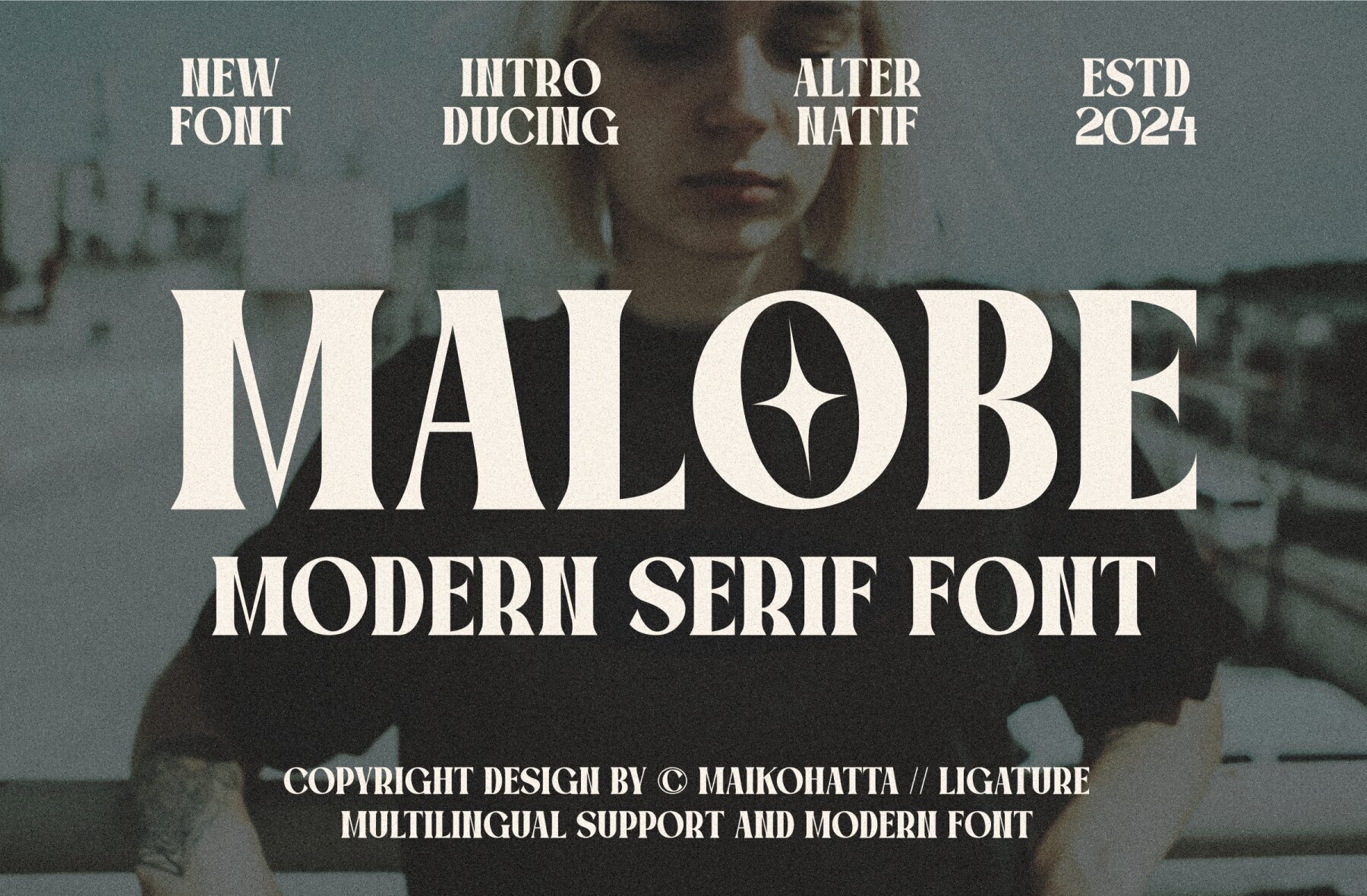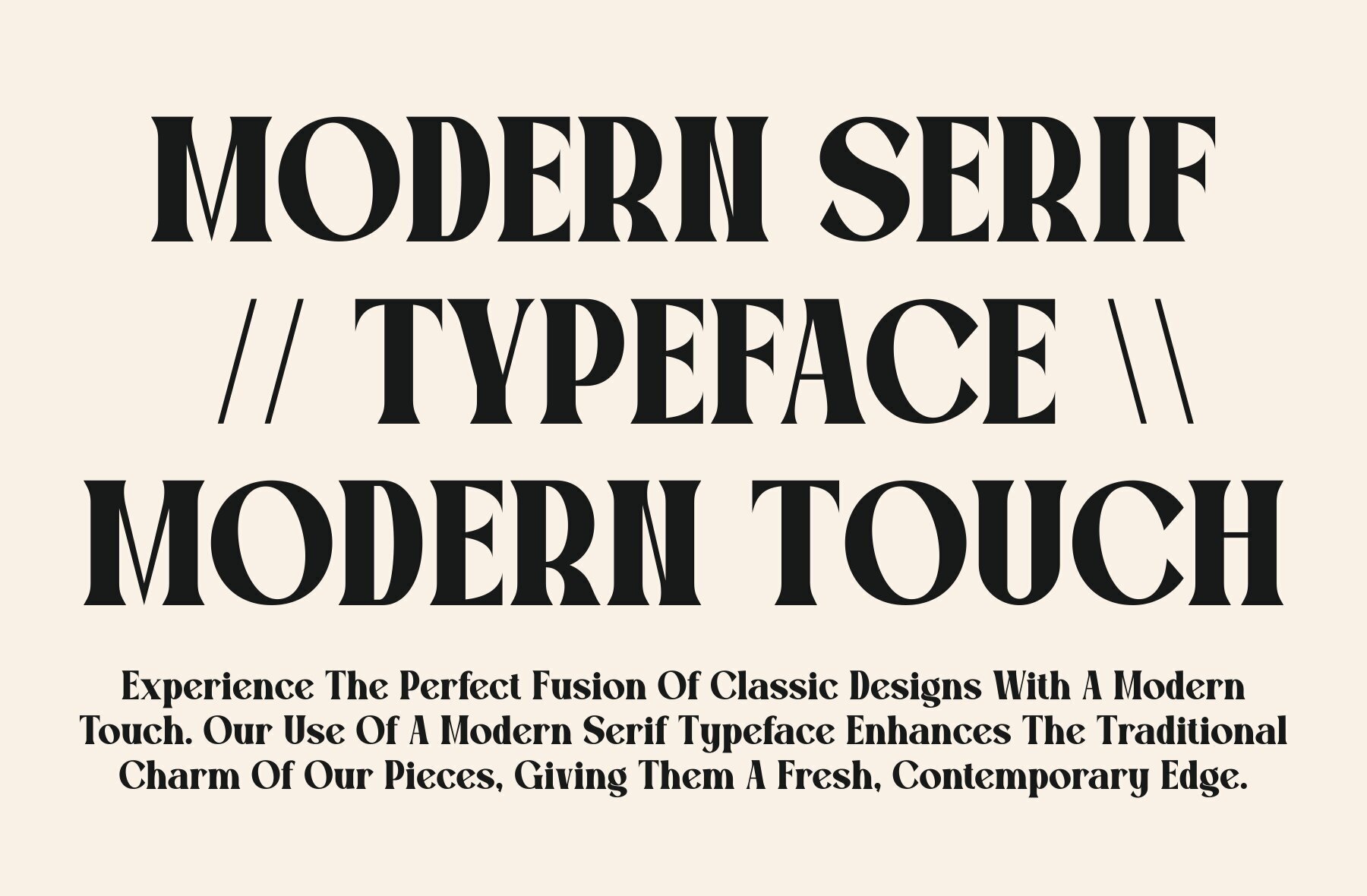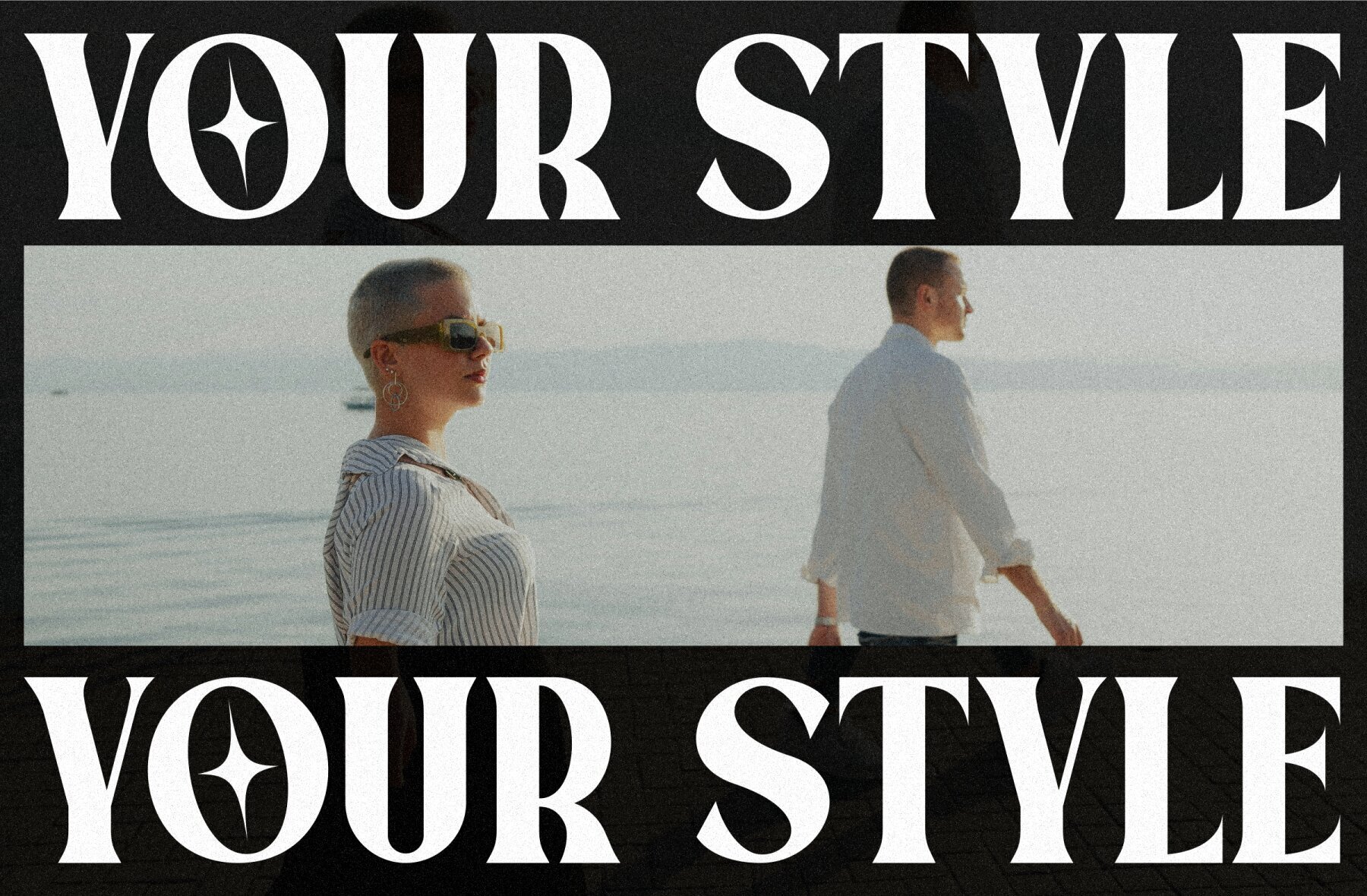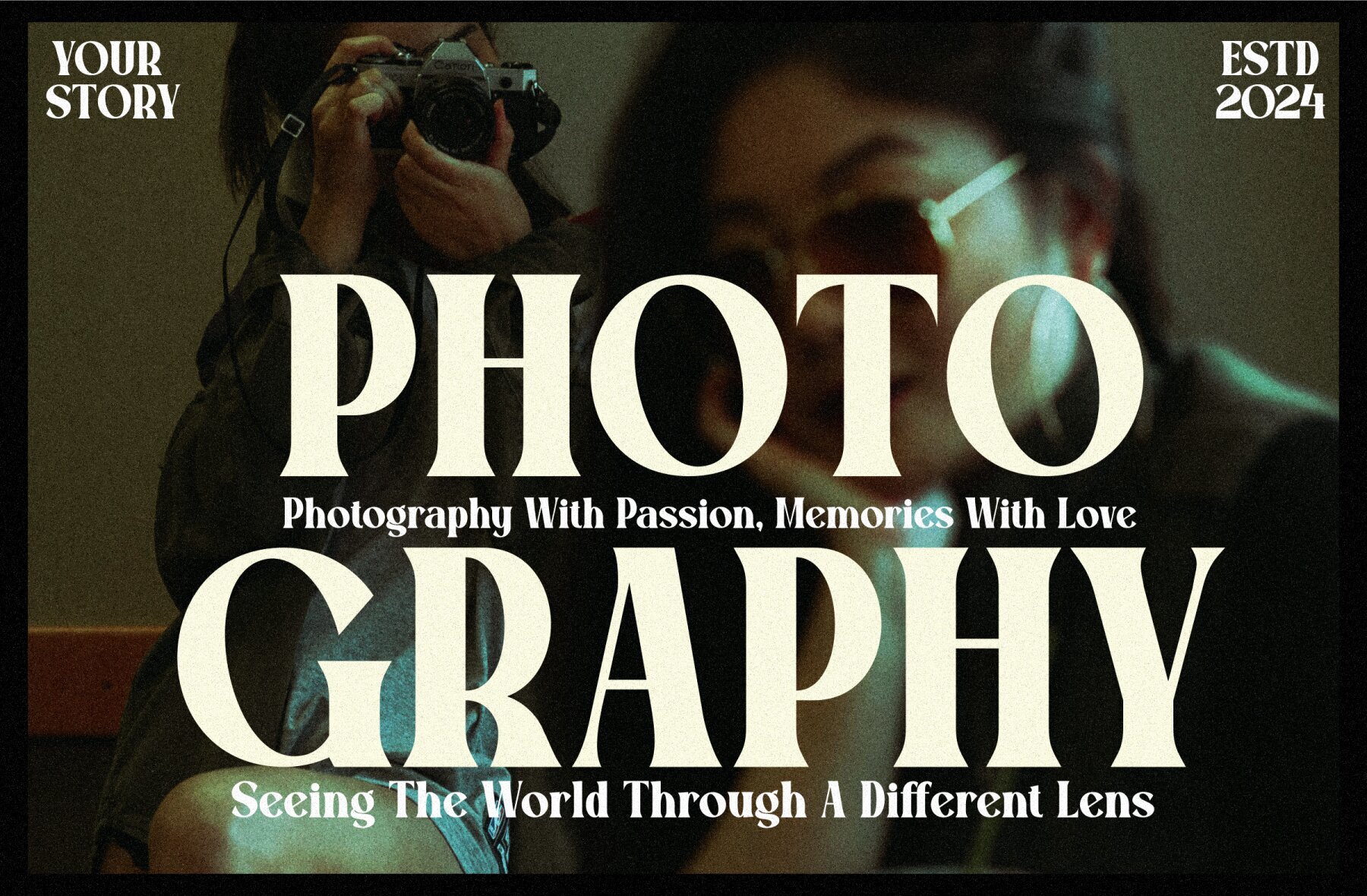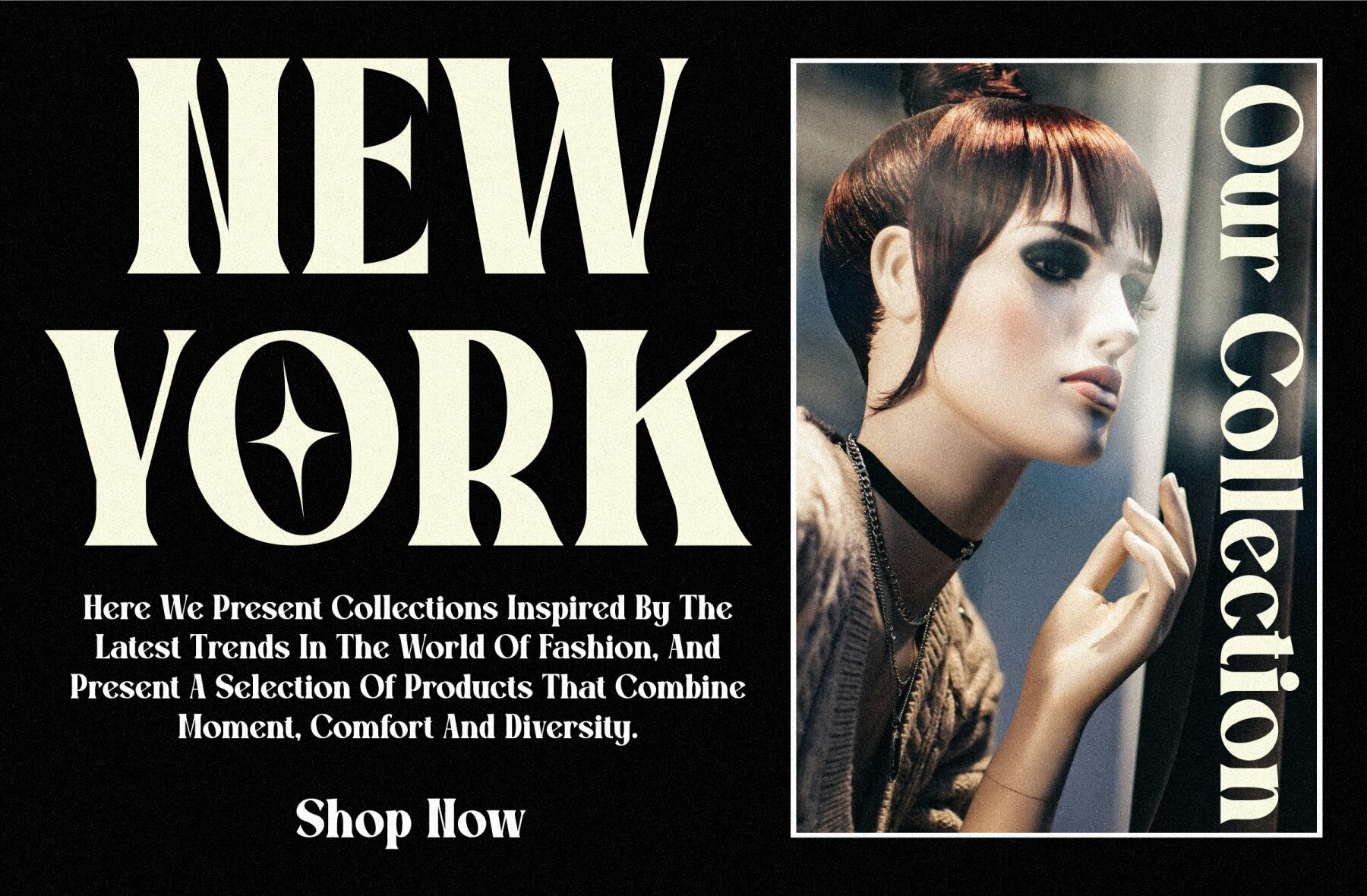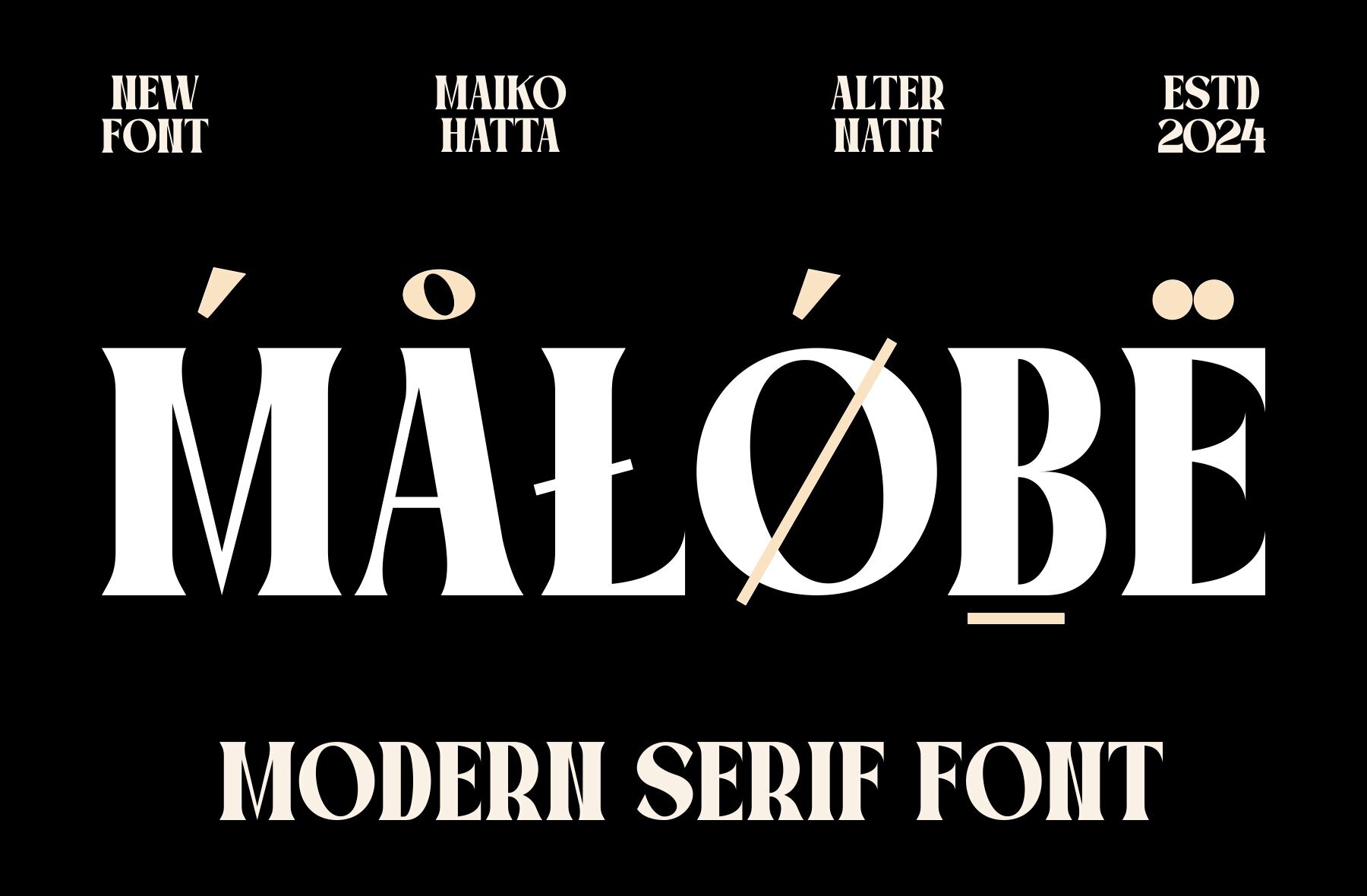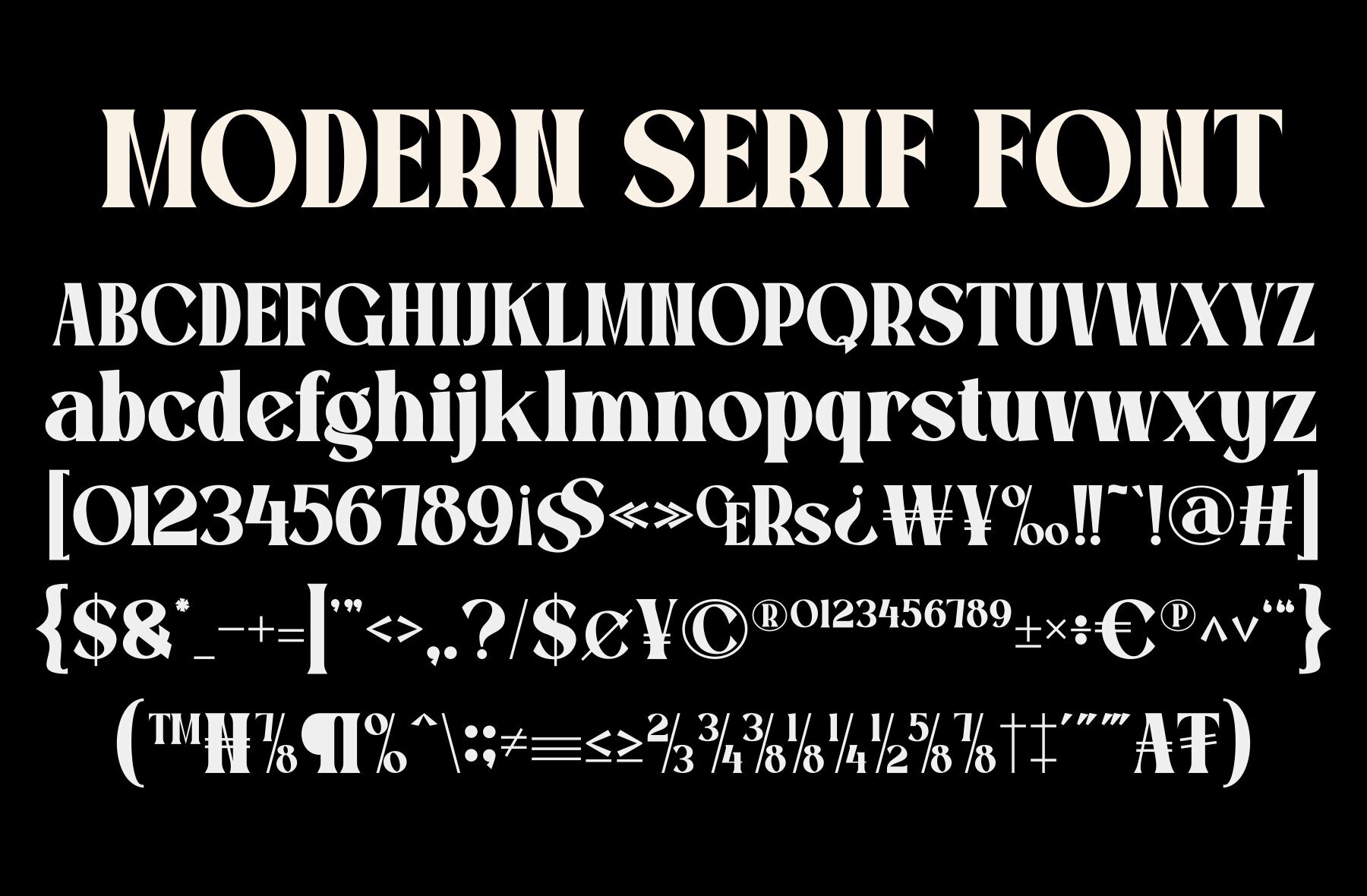
Malobe Font
Malobe Regular
Malobe features balanced stroke thickness, creating attractive and easy-to-read visuals. Its modern serif style is characterized by a bold distinction between thick and thin lines, providing an understated yet distinct touch.